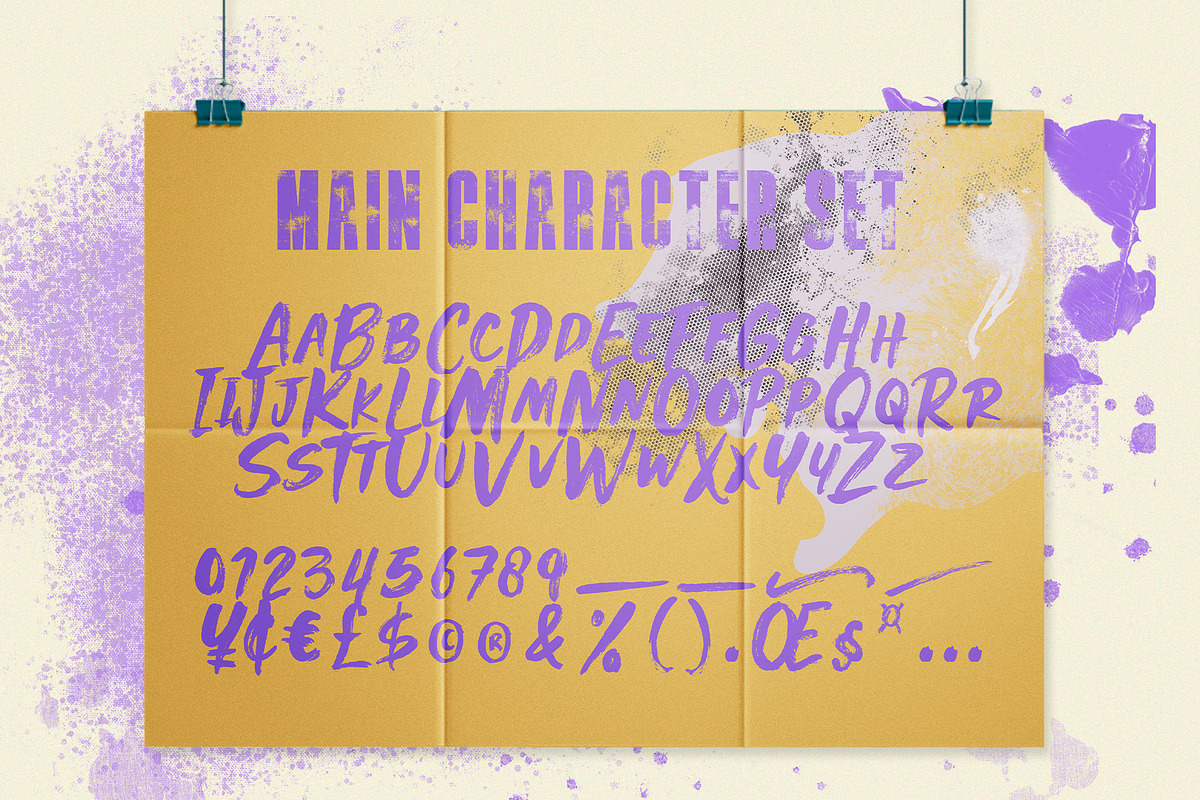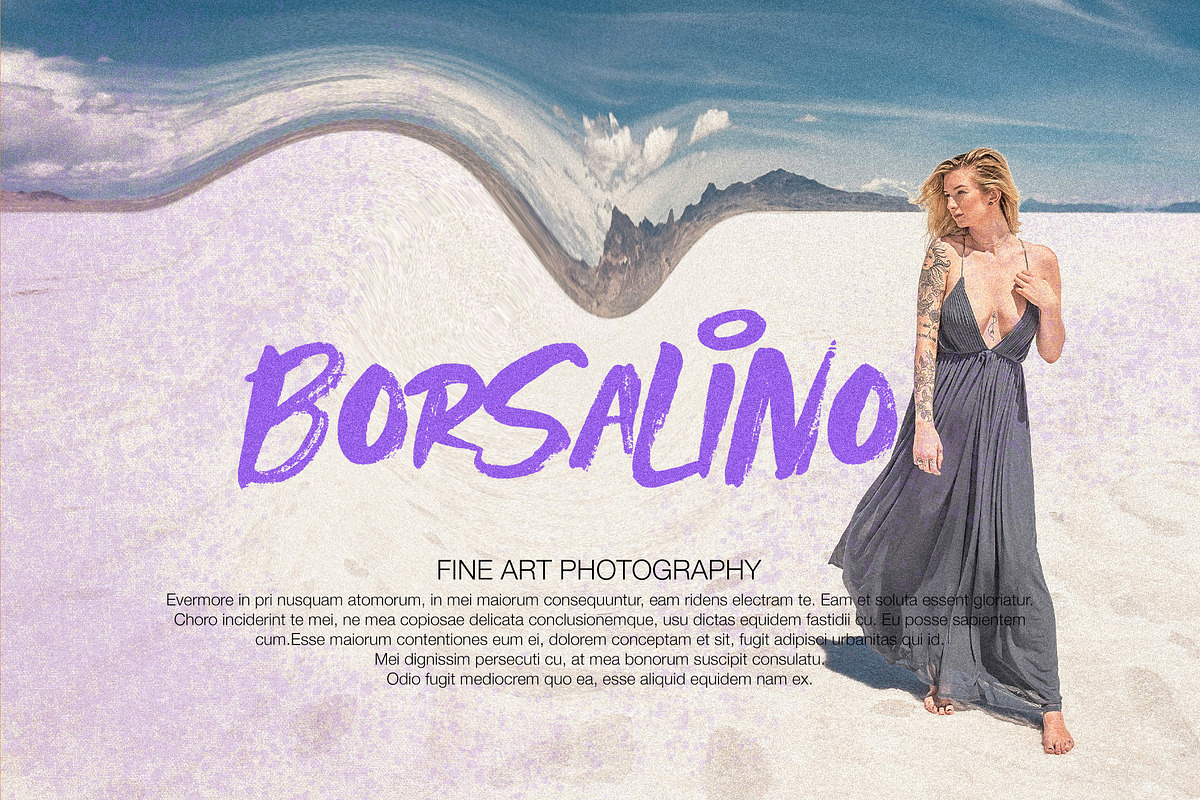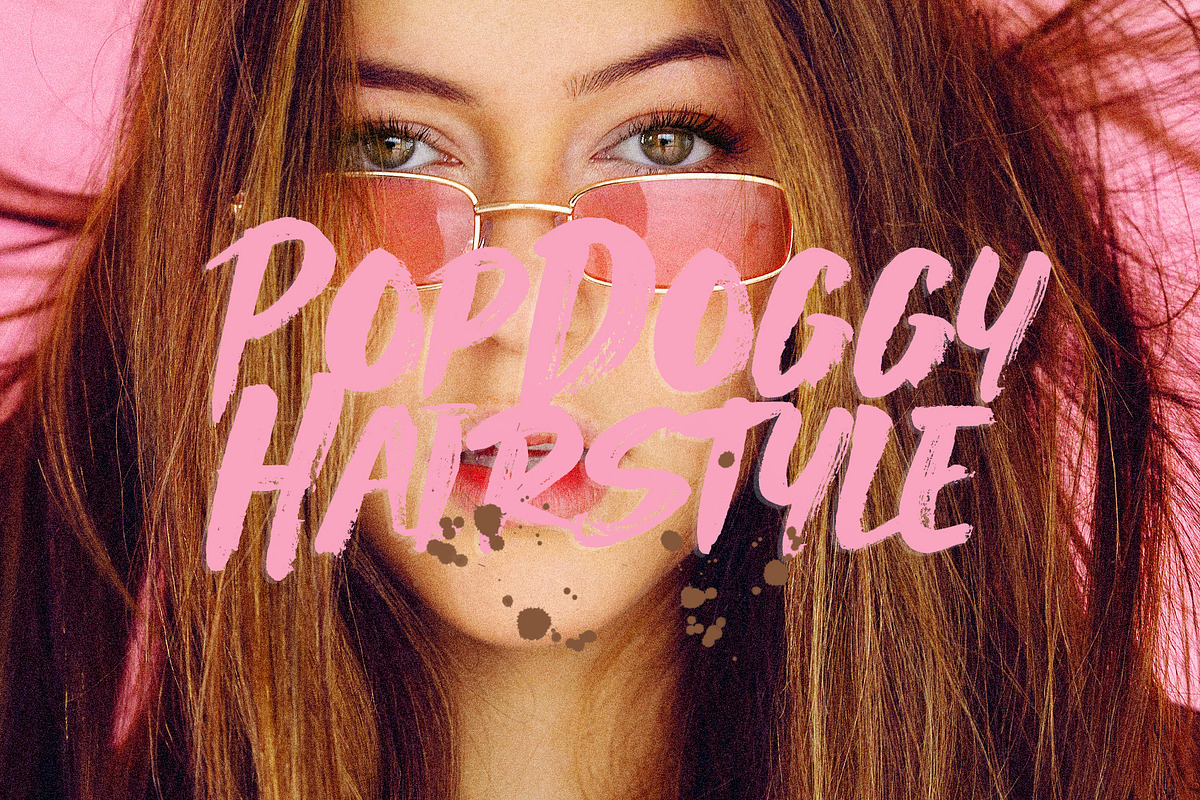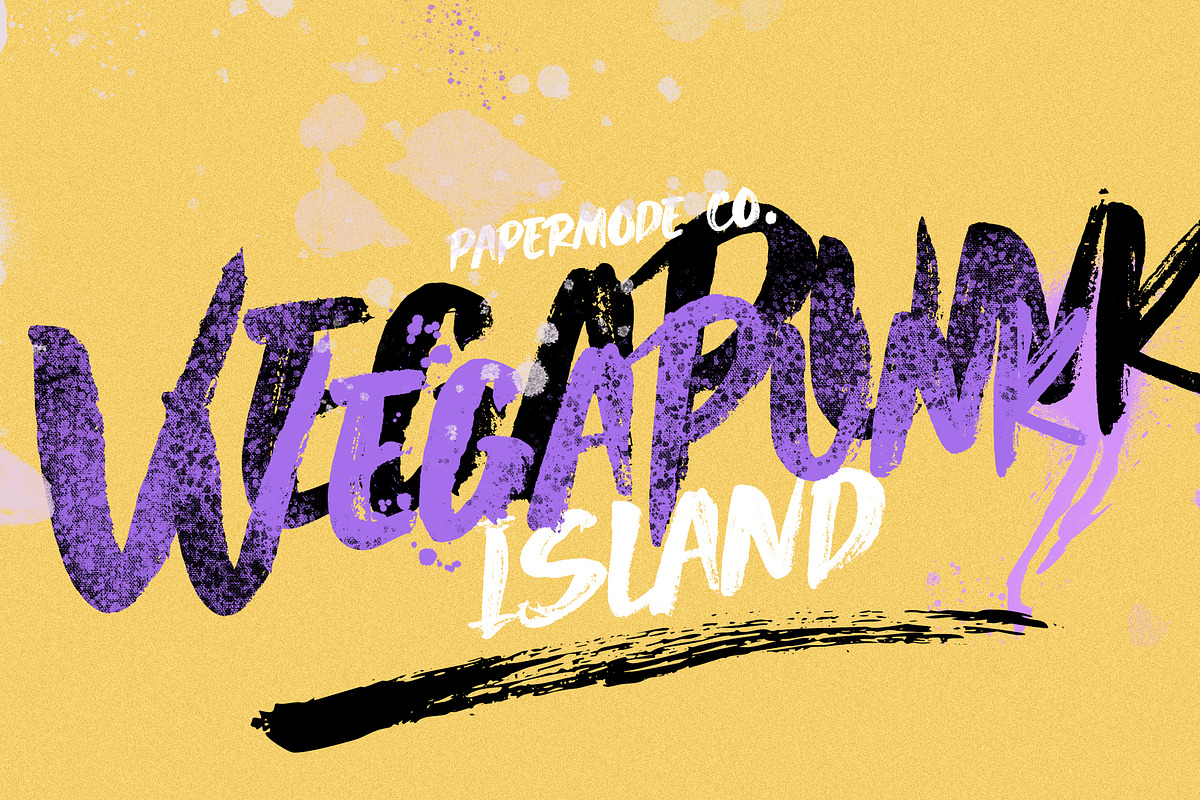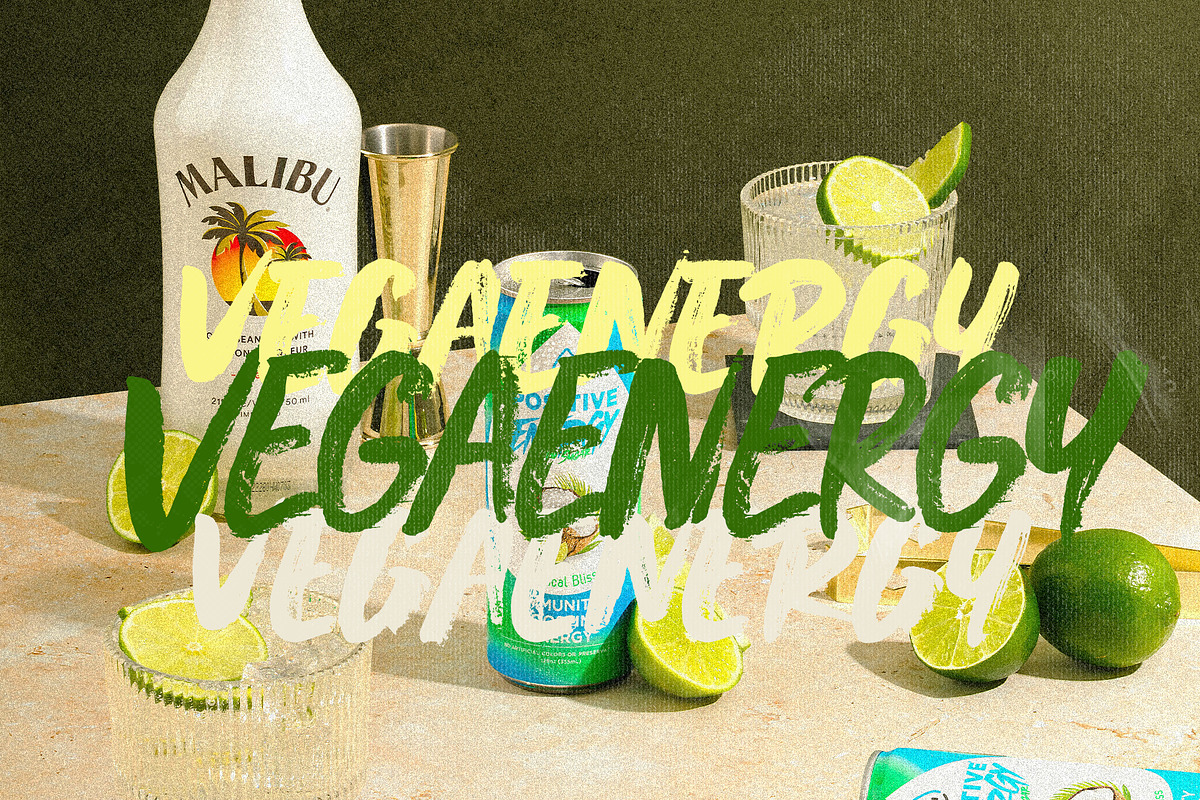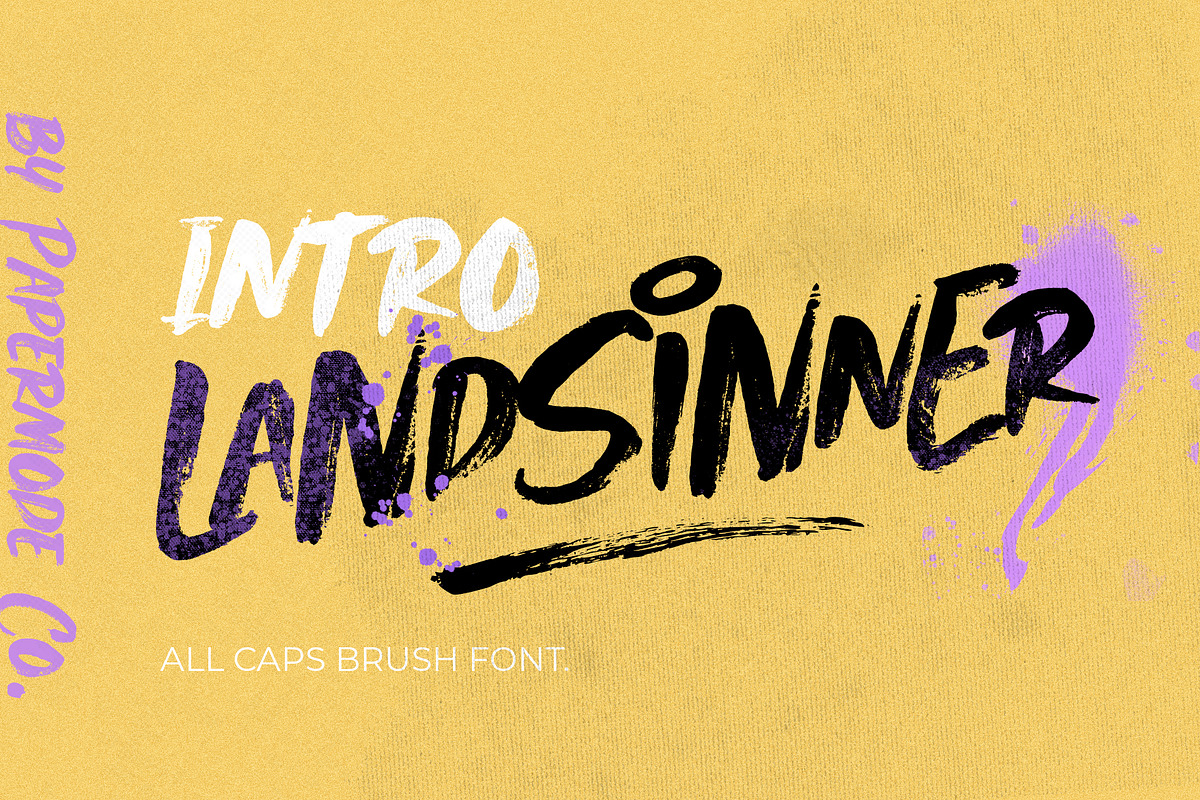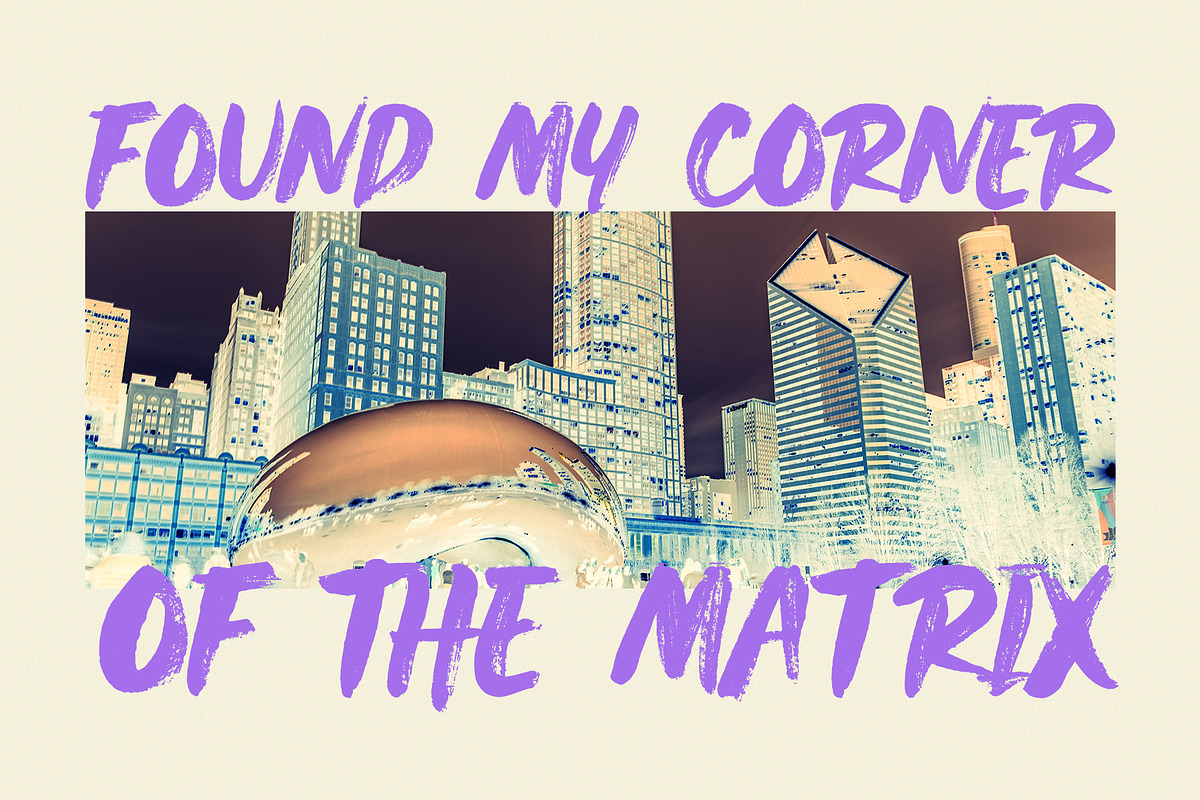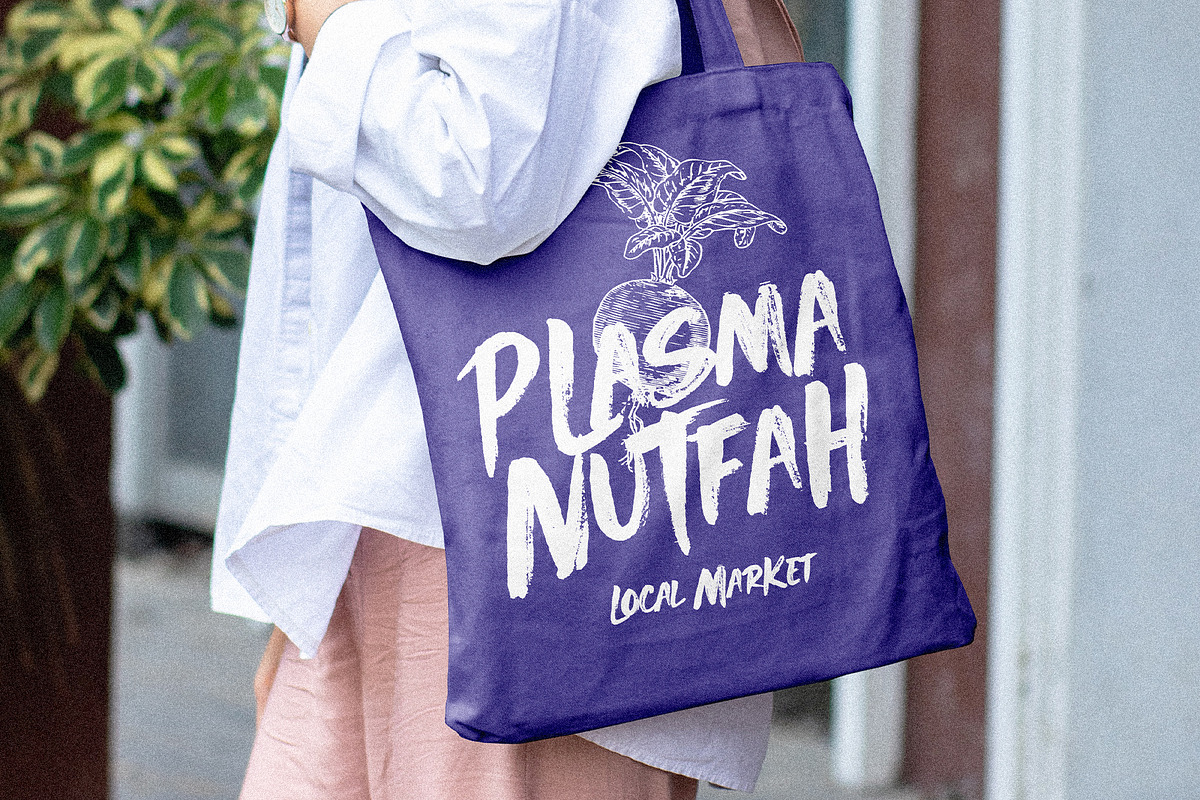
Landsinner Brush
Landsinner is a rough textured brush font, made from natural paint brushes, giving it a natural look.
Try Landsinner, and let her fun and elegant excitement make you happy and enhance your creativity! You can use this font very easily.